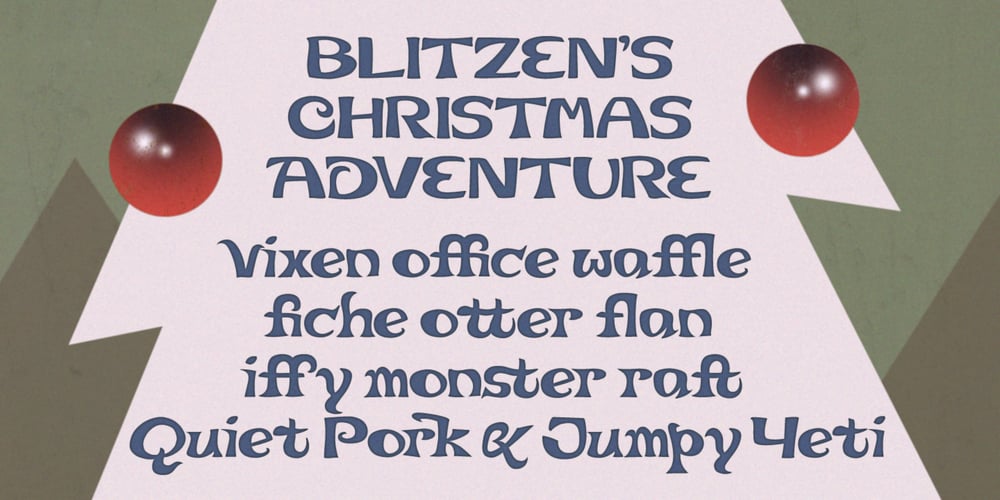
Quirkophonic Font Family was designed by Ian Stone and published by Tymime Fonts. Quirkophonic contains 1 styles and family package options. Quirkophonic mimics hand-drawn letters and logos of the 1960s. Suitable for album covers, movie posters, rock concerts, or whimsical fantasy. From secret spy capers to magic mushrooms, it’s all groovy.